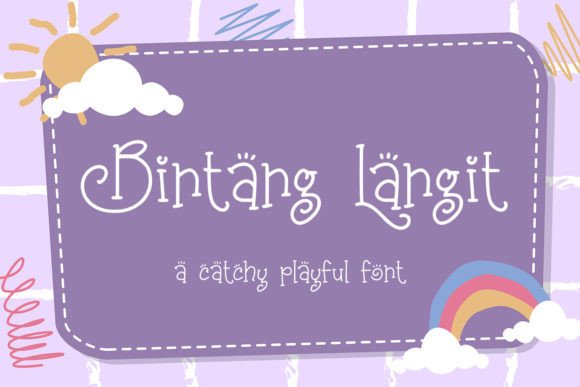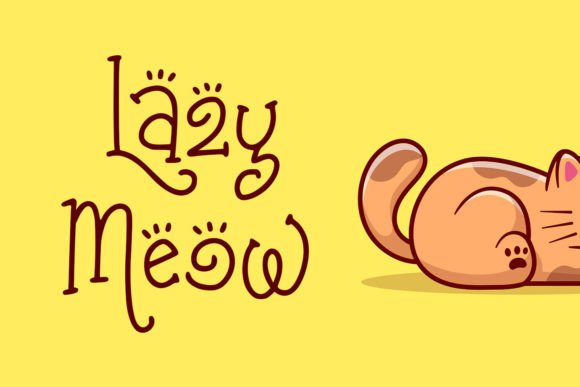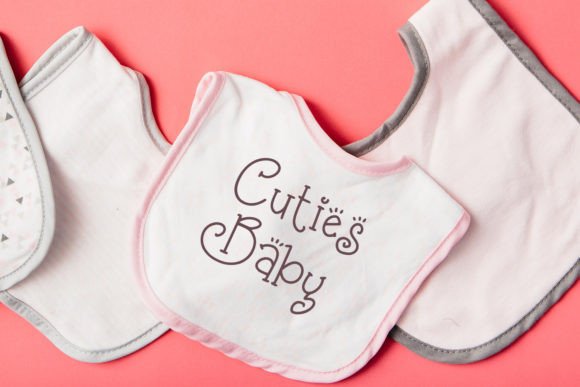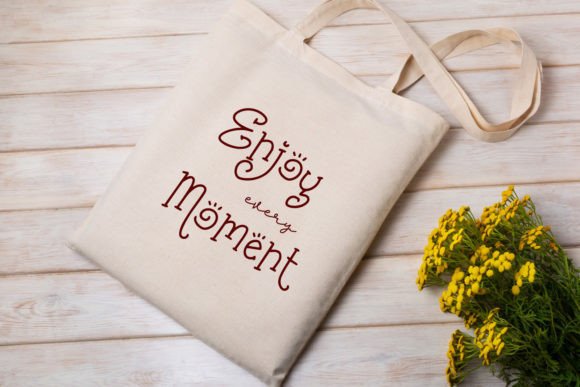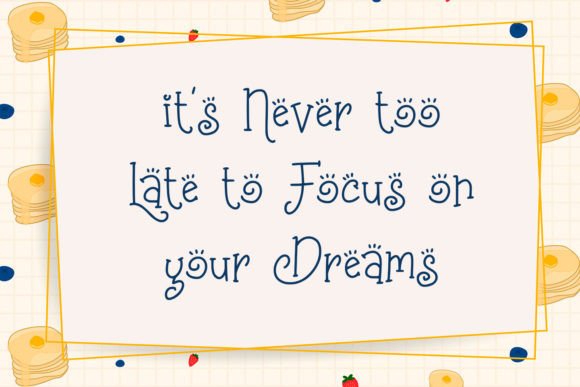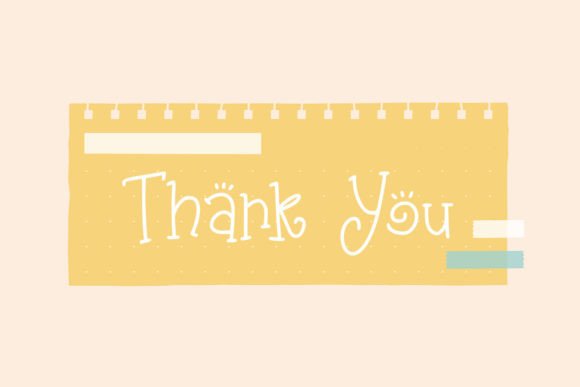
Bintang Langit Font
A Whimsical and Sweet Handwritten Typeface
Bintang Langit is a delightful handwritten font designed to bring joy, cheerfulness, and a friendly feel to any project. With its swirly and playful shapes, this font feels unique and full of personality. Whether you’re working on invitations, logos, or social media posts, Bintang Langit adds a charming touch that makes your work stand out.
Its approachable look is perfect for both personal and professional use.
Bintang Langit is a font you’ll love to use again and again. It’s ideal for greeting cards, birthday invitations, and thank-you notes. The whimsical style sets a warm and happy tone that feels genuine and personal.
In branding, Bintang Langit shines on logos, product packaging, and labels. Its handwritten look adds authenticity and playfulness to your brand, making it feel friendly and inviting.
This font is also a wonderful choice for digital designs. Use it on social media graphics, website banners, and blog headers. The elegant curves and swirly details keep your content engaging while staying easy to read.
Bintang Langit is also perfect for posters, art prints, and handmade gifts. Its sweet style makes every message feel uplifting and special.
Even with its decorative swirls, Bintang Langit stays clear and legible in all sizes. Smooth connections and balanced spacing help your text look neat and professional, whether you’re designing big headlines or small captions.
For a polished look, pair Bintang Langit with a clean sans-serif font. Use Bintang Langit for headings and feature text, and the sans-serif for supporting content. This combination keeps your layout tidy while showcasing the font’s personality.
To make Bintang Langit stand out, use light backgrounds and soft, cheerful colors. Pastel shades like blush pink, mint green, and light yellow highlight the font’s whimsical style without overpowering your layout.
When creating invitations or packaging, consider adding simple illustrations or delicate borders to complement the handwritten feel.
On social media, embrace white space to keep your posts clean and your message easy to read.
Think about the mood you want to convey. Bintang Langit is perfect for designs that feel joyful, warm, and approachable.
Bintang Langit isn’t just another script font—it’s a creative tool that brings happiness and charm to any project. From logos and packaging to personal cards, this font adapts effortlessly and makes your designs feel special and unique.